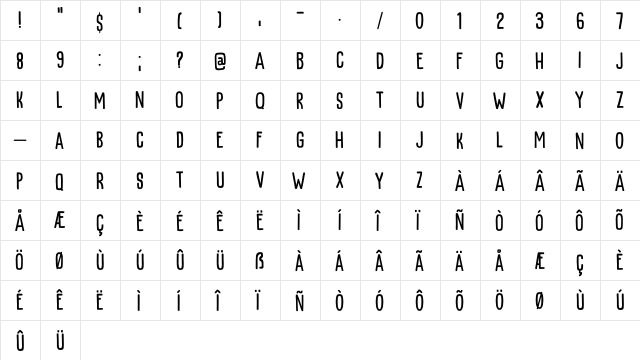
Kapsalon Print DEMO Regular
| Foundry | David Kerkhoff |
| Designer | David Kerkhoff |
Design Context for Kapsalon Print DEMO Typeface
Kapsalon Print DEMO is a composed and adaptable typeface that performs quietly and consistently across a wide range of design contexts.